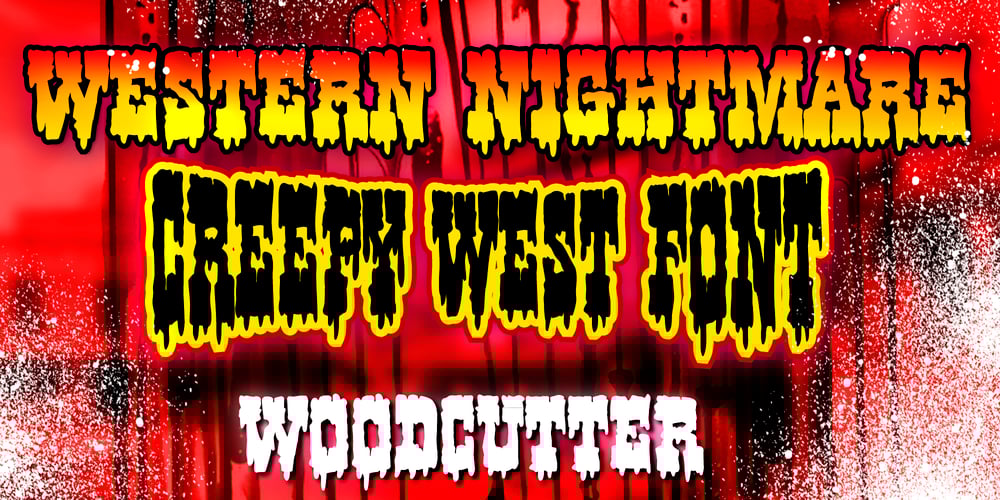
Western Nightmare Font Family was designed by Jordi Manero and published by Woodcutter. Western Nightmare contains 1 styles and family package options. The Font has an aggressive and bloody appearance, evoking the wild west and supernatural horror. The design is dense and strong, with each letter occupying a significant space in the line. Overall, the font creates a sense of danger, death, and horror in the old west. It’s perfect for use in horror western movie posters, event advertisements, or anywhere you want to create an atmosphere of suspense and tension in the wild west.